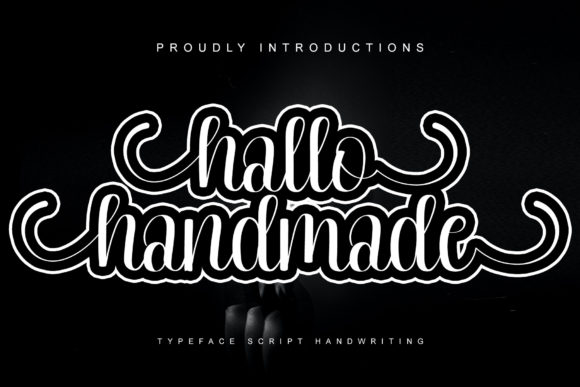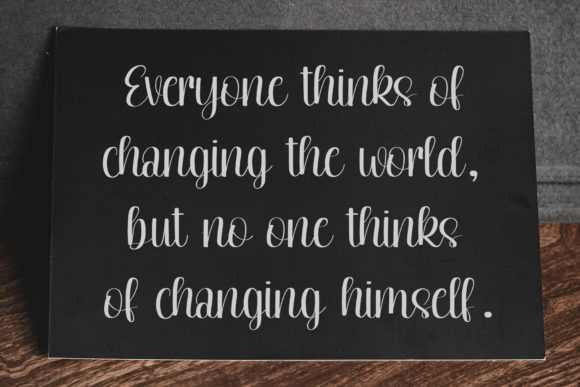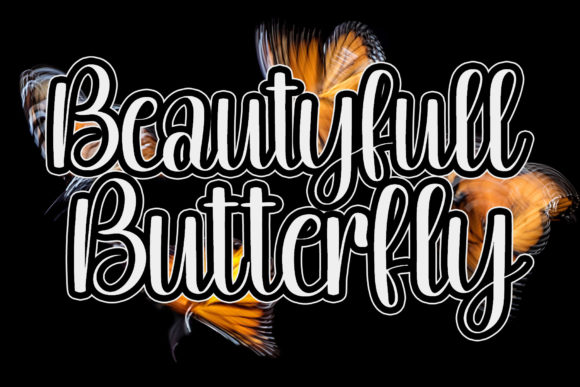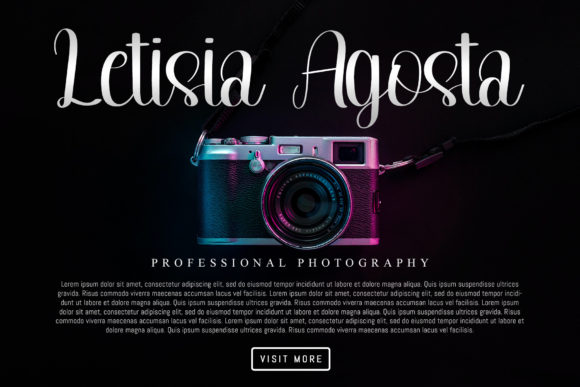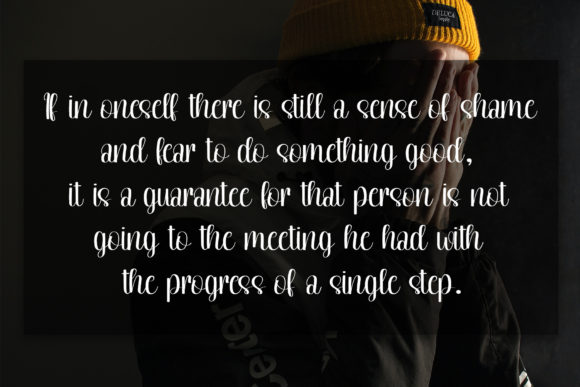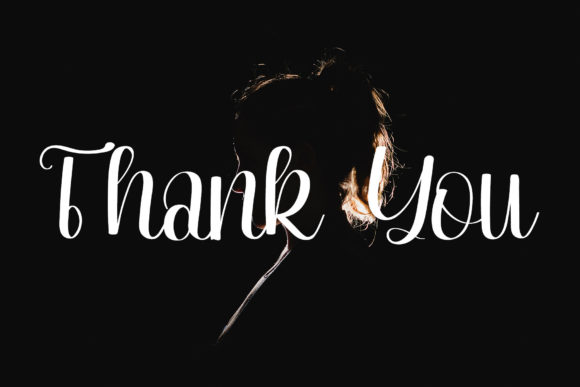
Hallo Handmade Font
About Hallo Handmade Font
Hallo Handmade is a beautiful and flowing script font. This gentle font will look gorgeous on a variety of design ideas. Fall in love with its incredibly distinct and timeless style and use it to create spectacular designs!